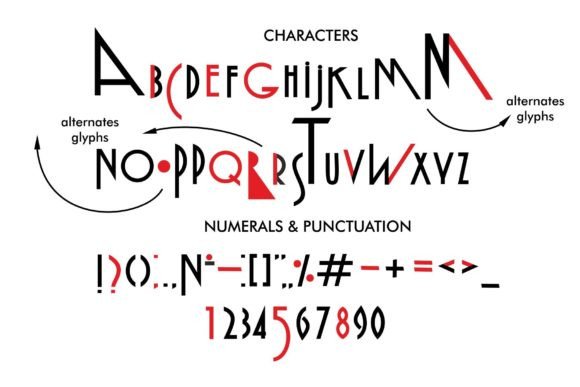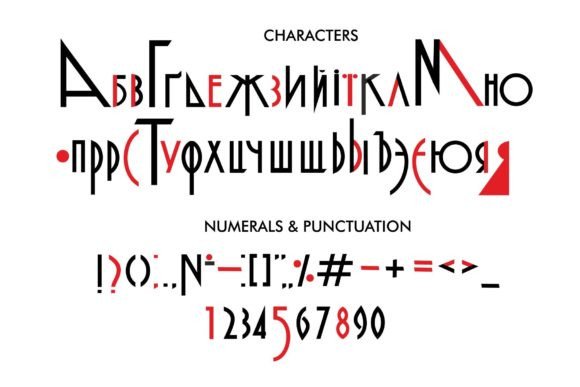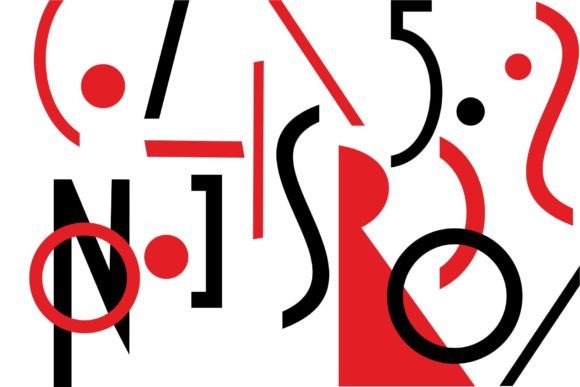
Introduction to Malarstvo Font
As designers, we’ve all been there – staring at a blank canvas, waiting for inspiration to strike. But what if that spark of creativity came from the intersection of art and typography? For those seeking a high-quality, avant-garde display font that elevates their creative project, look no further than the Malarstvo Font.
Named after the Ukrainian artist Vasyl Krychevsky, this stunning font embodies the spirit of modern Ukrainian art and culture. With its unique lettering style, Malarstvo Font is perfect for designers who crave a design resource that stands out from the crowd. Whether you’re working on a t-shirt design, typographic art, or social media images, this font is sure to make your project shine with a transparent background and a free download option.
For designers, Malarstvo Font is a valuable addition to their toolkit, offering a fresh perspective on typography and a creative outlet for self-expression. In this article, we’ll delve into the world of Malarstvo Font and explore its features, applications, and why it’s a must-have for any design enthusiast.
Malarstvo Font
- High-quality design for various creative projects, offering a unique aesthetic.
- Includes a range of glyphs, symbols, and characters to support various languages and scripts.
- Designed to work well at high resolutions, ensuring crisp and clear typography in various sizes and formats.
- Supports advanced typography features, such as ligatures and stylistic sets, for added creativity and flexibility.
Honest Review: Malarstvo Font
I recently had the chance to work with the Malarstvo Font, and I must say, it’s a fantastic addition to any designer’s toolkit. This high-quality font is perfect for creative projects that require a unique touch.
- Clear and transparent background, making it easy to layer and customize.
- Wide range of styles and weights to suit different design needs.
- Works well in both digital and print formats.
While Malarstvo Font is an excellent resource, there are a few limitations to consider:
- May not be suitable for very small text sizes due to its unique design.
Overall, I’m impressed with Malarstvo Font. It’s a versatile and high-quality design resource that can elevate any creative project. With its transparent background and wide range of styles, it’s a great addition to any designer’s toolkit.
Malarstvo Font
Malarstvo Font is a high-quality design resource perfect for creative projects. This free download offers a unique and stylish aesthetic that can elevate any visual content. With its transparent background, Malarstvo Font is highly versatile and can be easily integrated into various design applications.
Getting the Most Out of Malarstvo Font
Here are some tips for getting the most out of Malarstvo Font:
– Experiment with different font sizes and styles to create visual interest.
– Combine Malarstvo Font with other design elements to create a unique look.
– Use Malarstvo Font in conjunction with transparent backgrounds to create a sleek and modern aesthetic.
Malarstvo Font is perfect for:
– Creating logos and brand identities.
– Designing social media graphics and posts.
– Developing engaging presentations and reports.